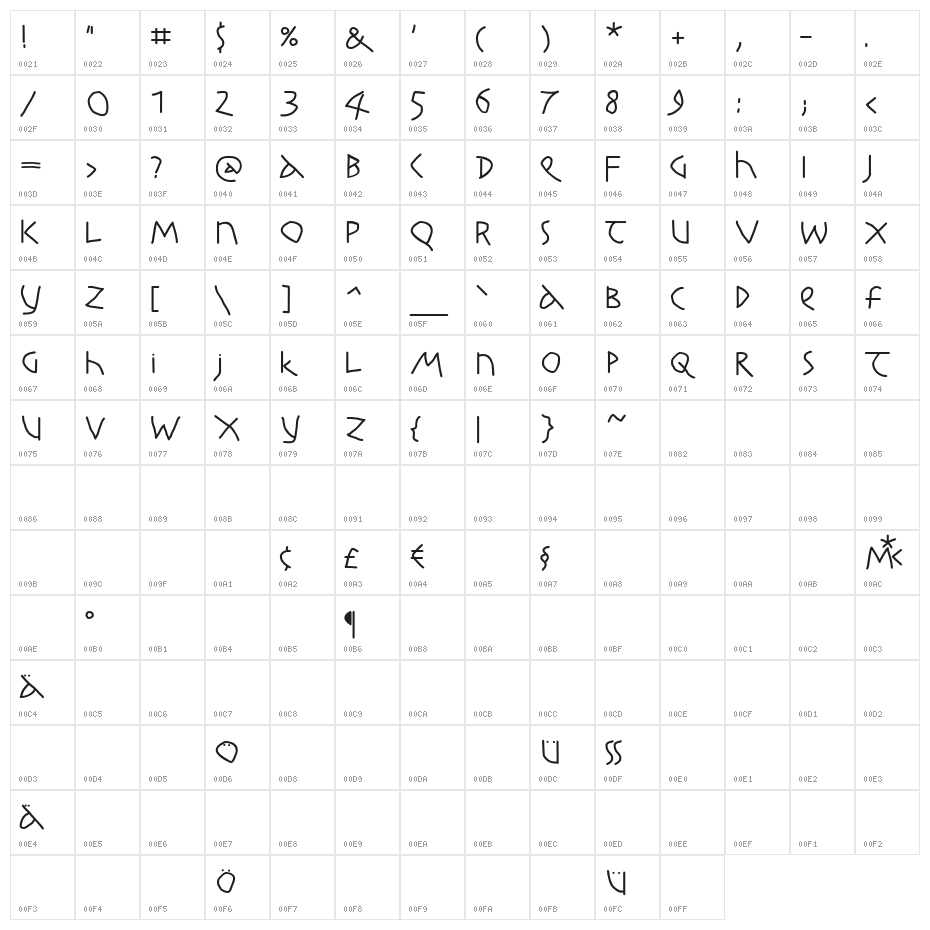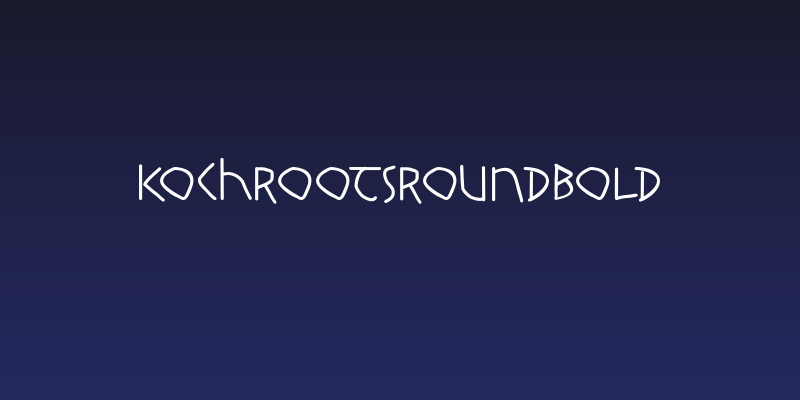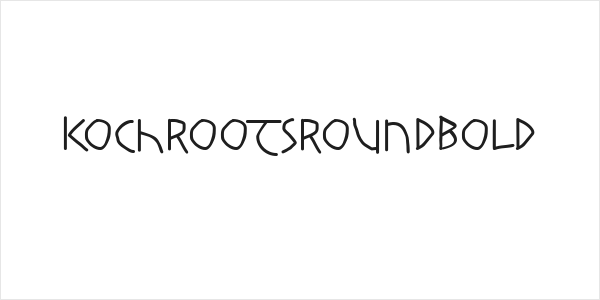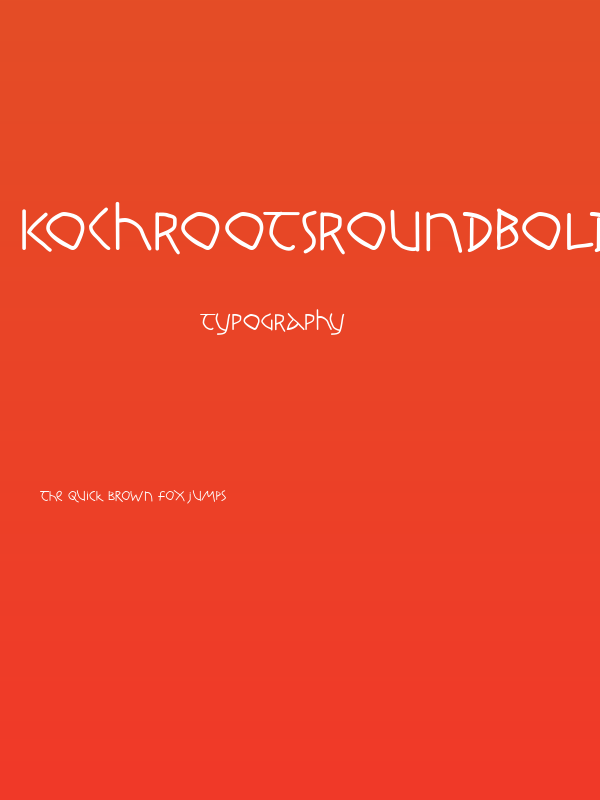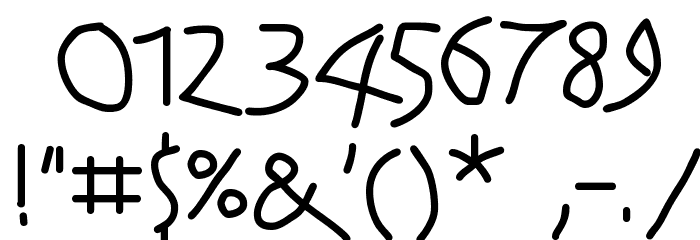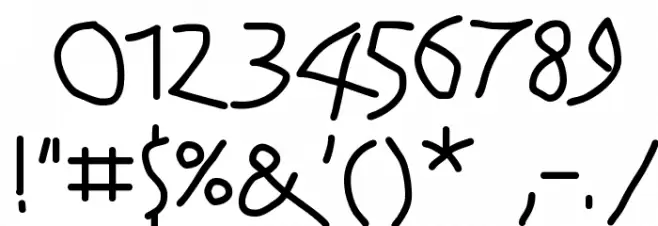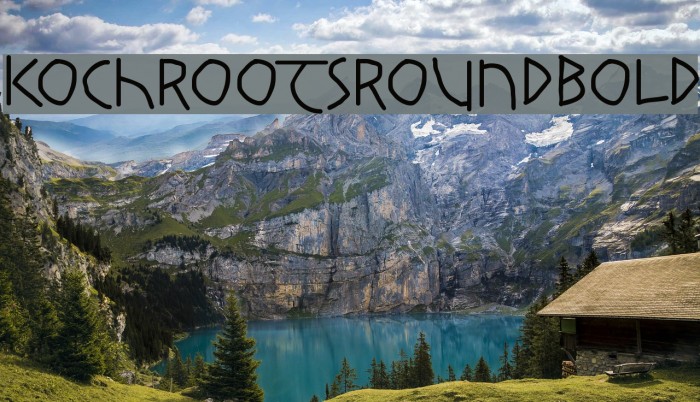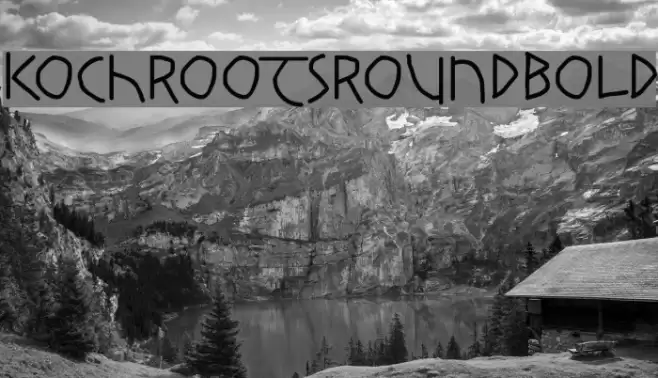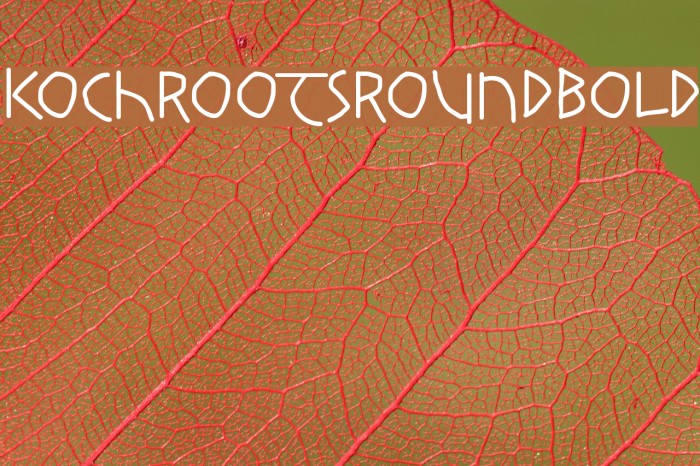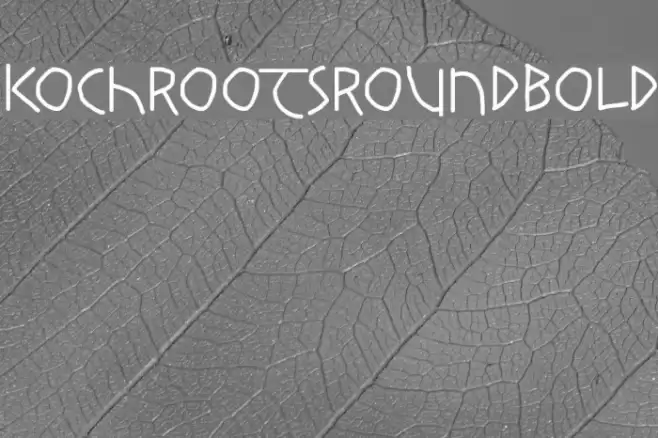
KochRootsRoundBold Font
KochRootsRoundBold Description
This font features a unique, rounded style with a playful and artistic flair. The characters are bold and have a hand-drawn appearance, giving them a casual and approachable feel. The strokes are consistent in thickness, providing a uniform look across all characters. The uppercase and lowercase letters maintain a cohesive design, with slight variations that add to the font's charm. The numerals and special characters are crafted with the same attention to detail, ensuring they blend seamlessly with the alphabet. Overall, this font exudes a modern yet whimsical vibe, making it suitable for creative and informal projects.
| Overall Style | Modern, Whimsical |
| Proposed Projects | Ideal for children's books, creative posters, playful branding, and informal invitations. |